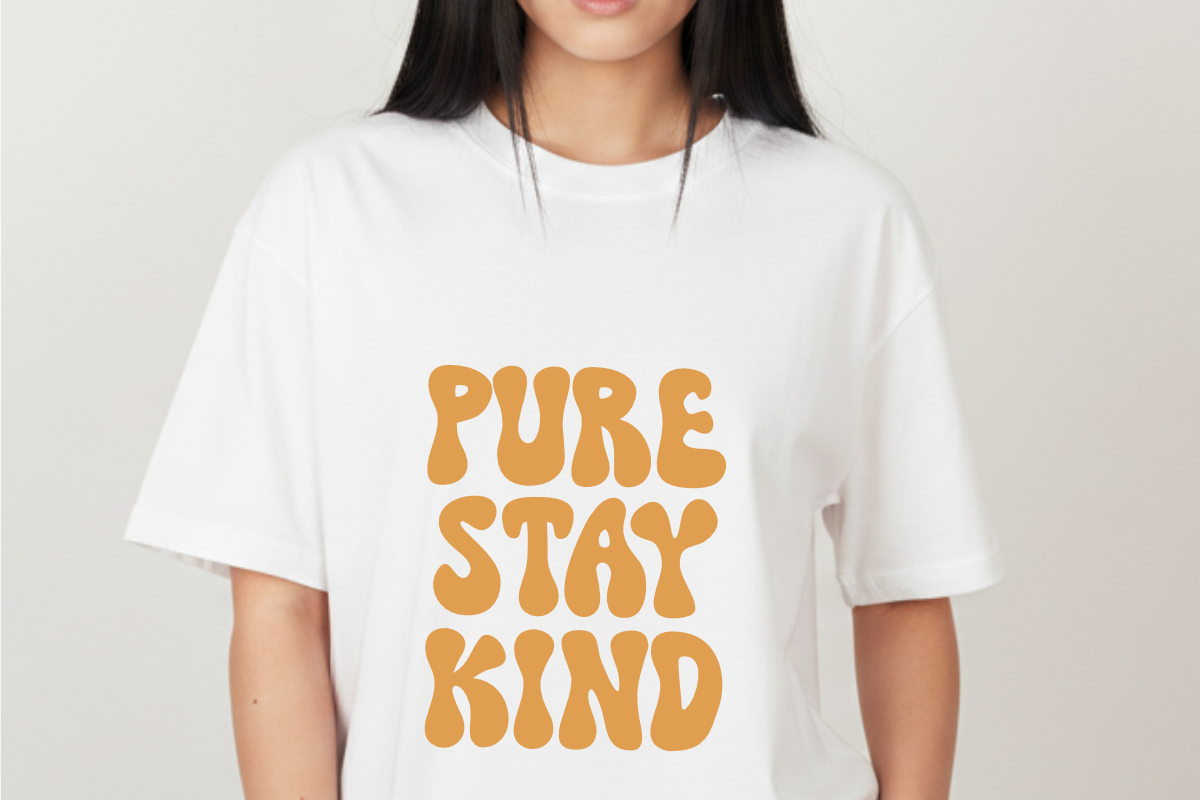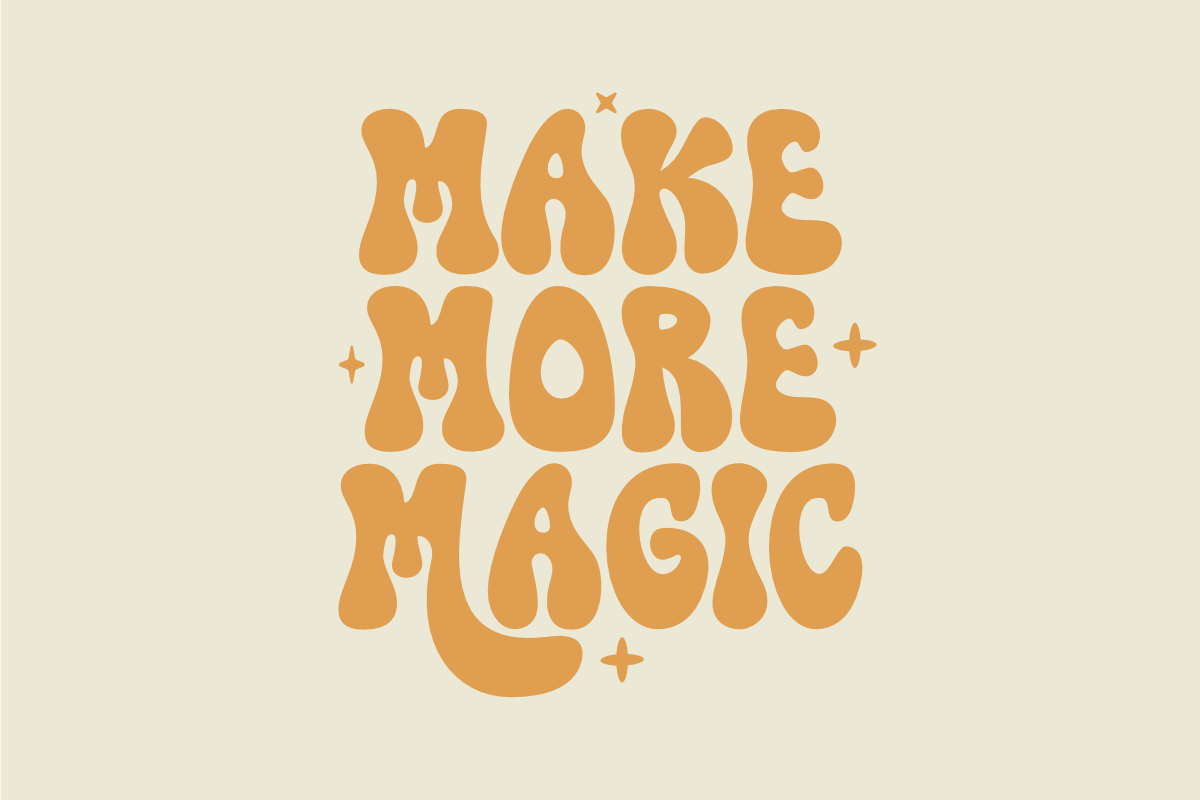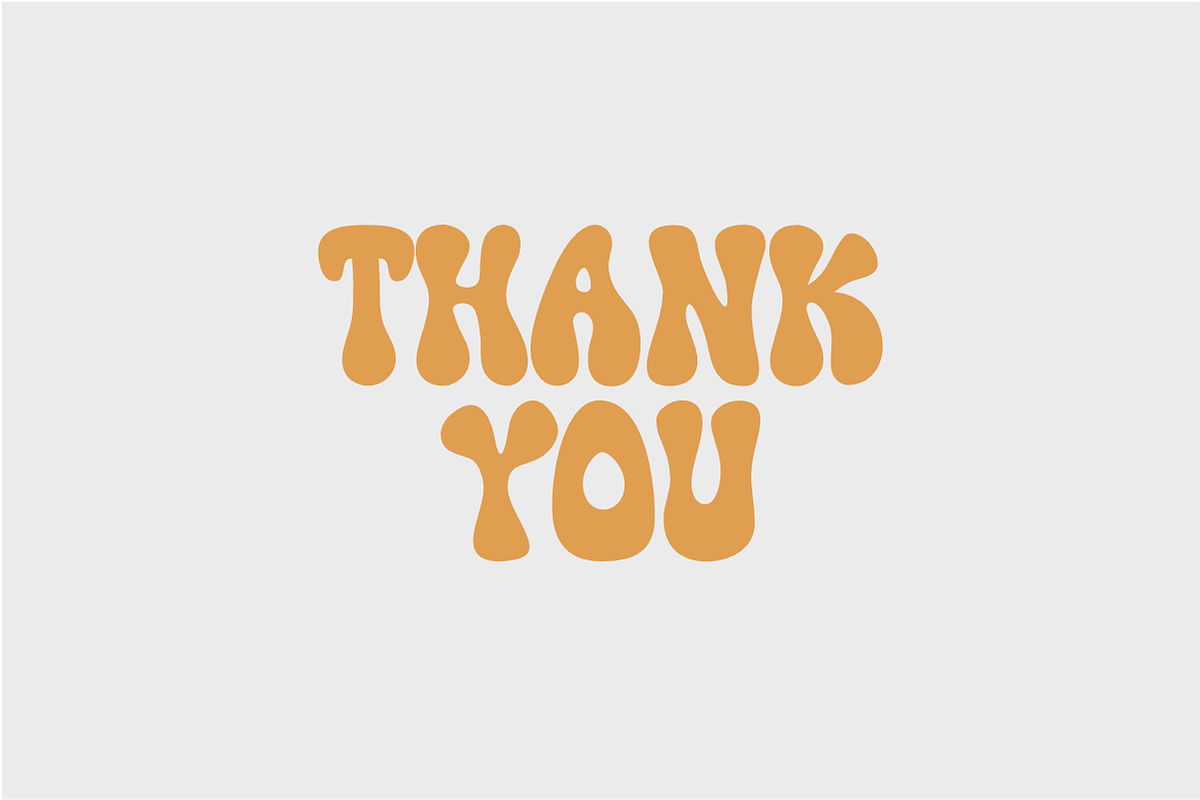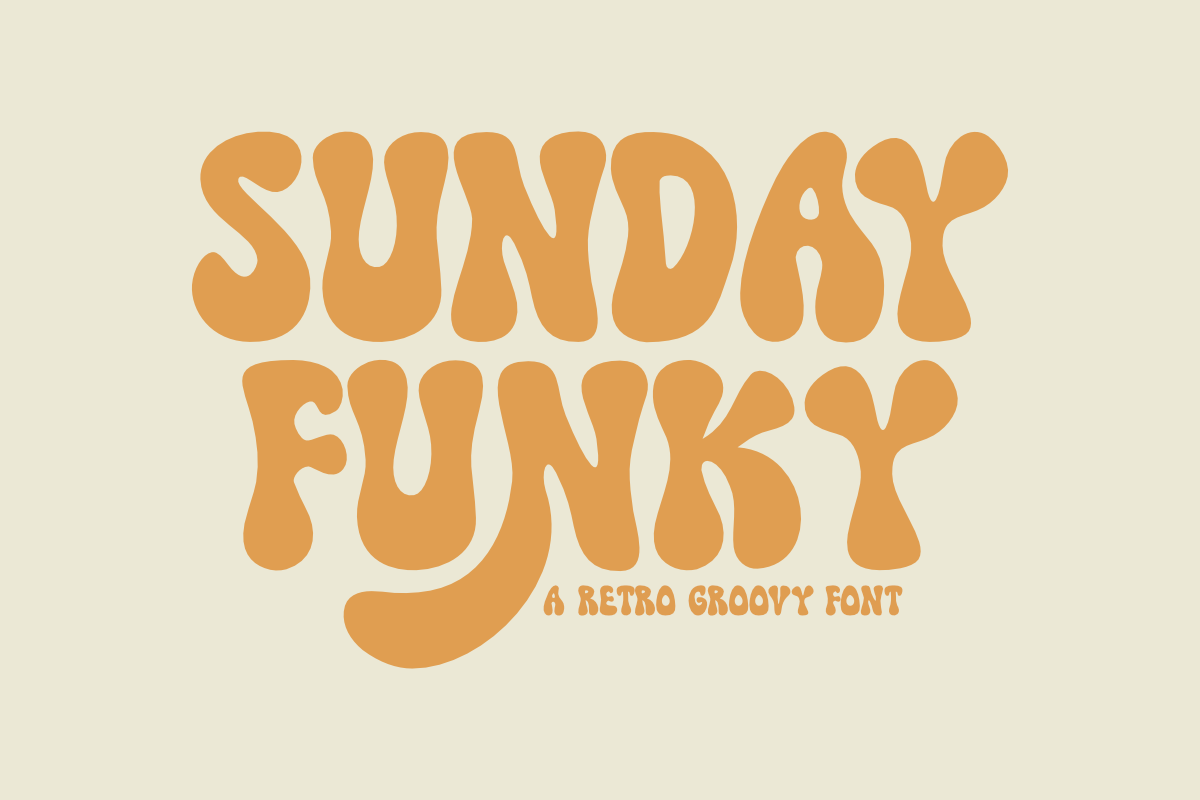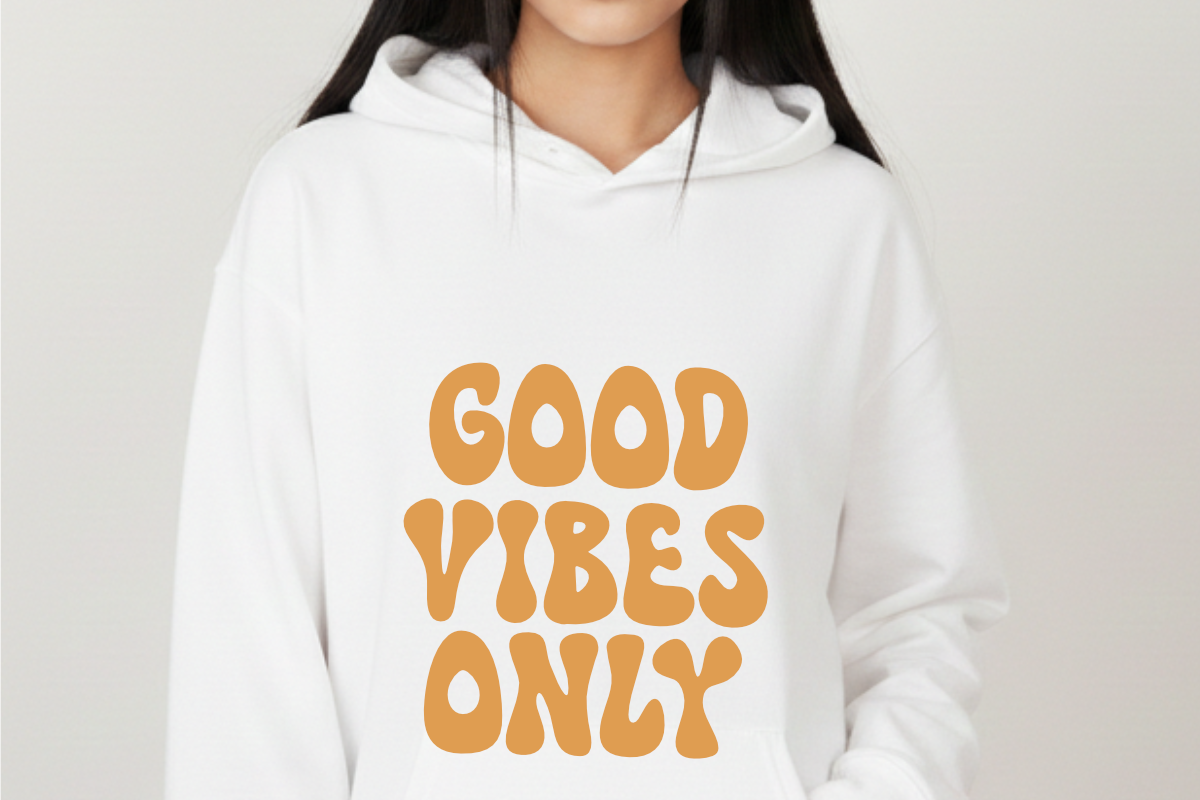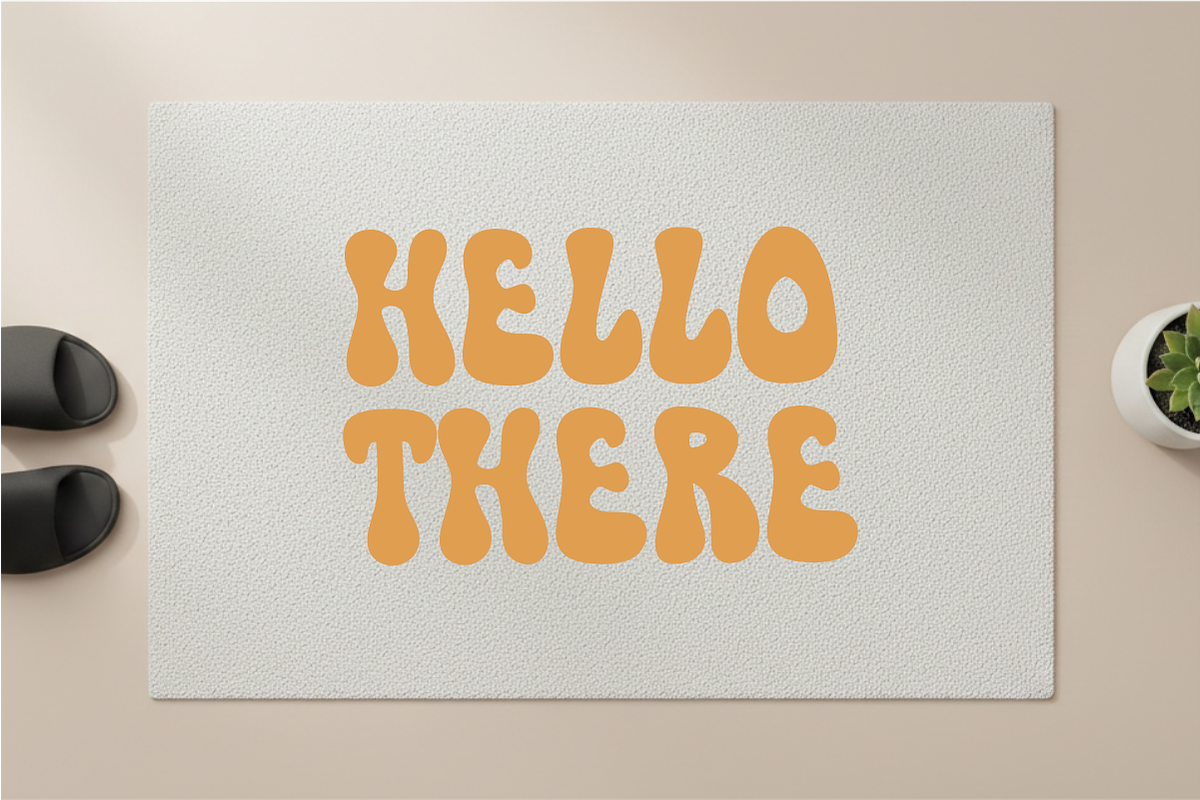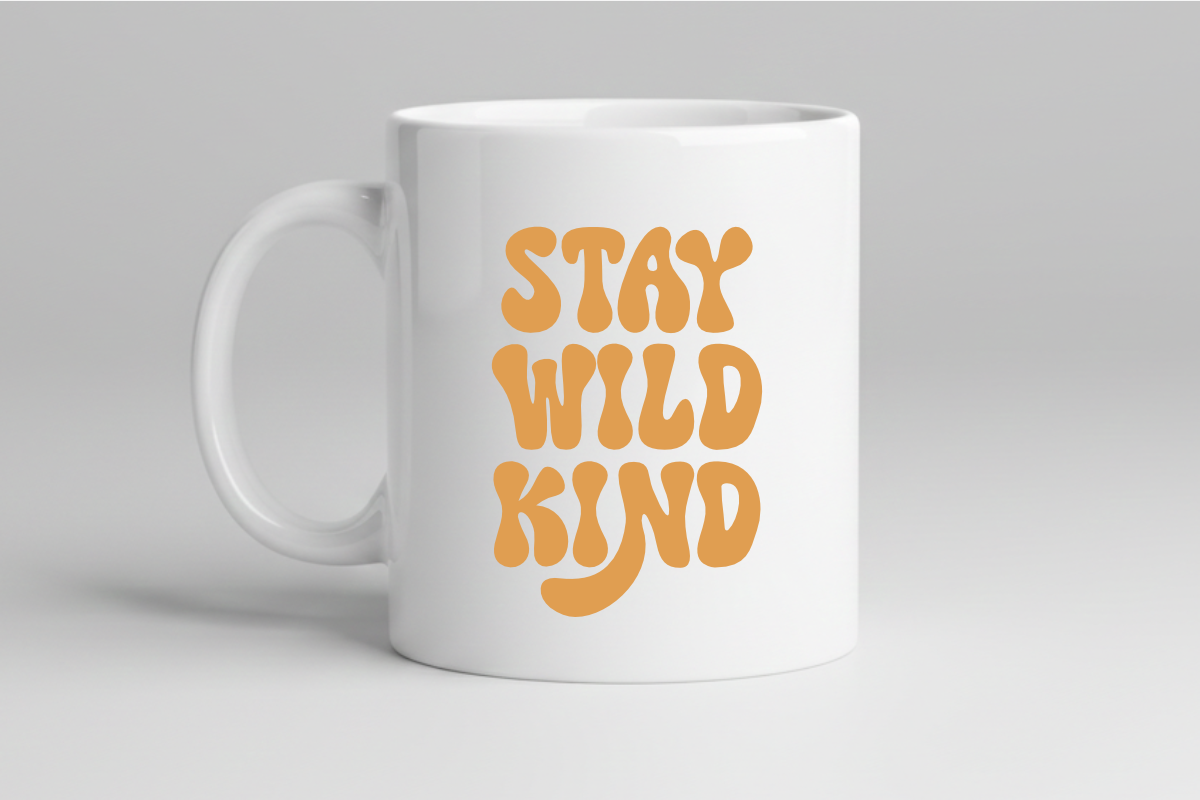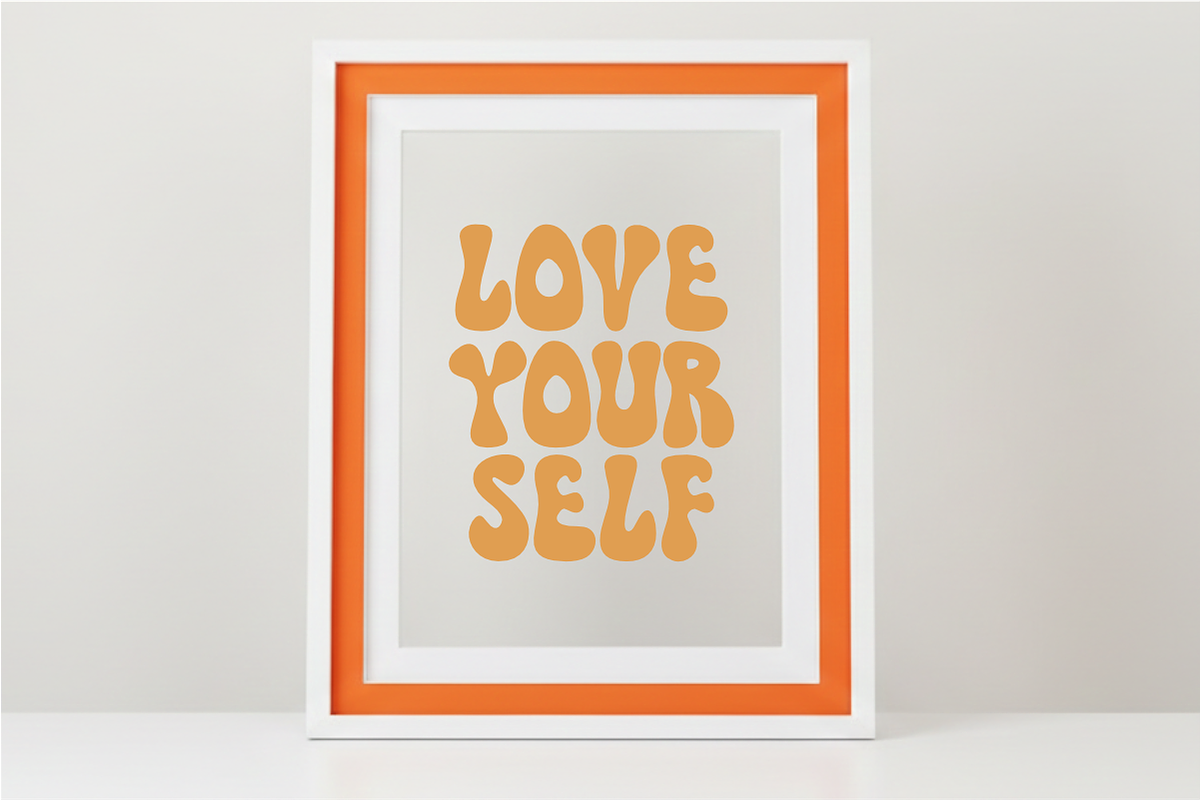
Sunday Funky - Retro Groovy Font
Sunday Funky is a vibrant and soulful retro groovy font designed to bring the energetic spirit of the 1970s into your modern designs. This bold display typeface features thick, bubbly letterforms with a signature wavy rhythm, making it an ideal choice for vintage-inspired branding, funky apparel, psychedelic posters, and standout social media graphics. Its nostalgic and playful aesthetic ensures your headlines pop with a unique handcrafted personality. Whether you are designing for music festivals, retro-themed boutiques, or whimsical stickers, Sunday Funky adds a lively and creative groove to every project.